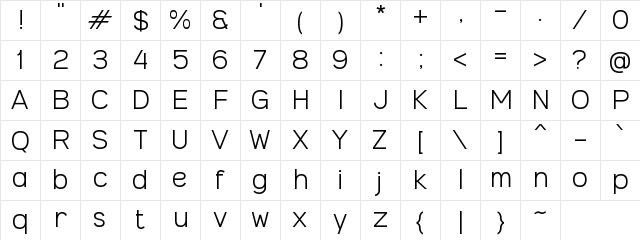
g Gerhana Matahari Regular
Design Context for g Gerhana Matahari
g Gerhana Matahari is a composed and adaptable typeface that performs quietly and consistently across a wide range of design contexts.
Pro Tip: Use g Gerhana Matahari in both headline and body roles to test its range before committing to a single application.